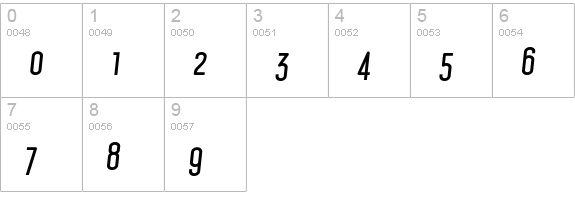
ConcursoItalian BTN BoldOblique Font Details
ConcursoItalian BTN BoldOblique font is a striking and elegant typeface that exudes sophistication and style. Its bold yet graceful curves make it perfect for adding a touch of class to any design project. Whether you're working on a branding project, a poster, or a website, this font is sure to make a statement. The italicized slant of the letters adds a dynamic flair to the overall look, making ConcursoItalian BTN BoldOblique font a versatile choice for both formal and informal designs. Its sleek and modern design will capture attention and leave a lasting impression on your audience. And the best part? ConcursoItalian BTN BoldOblique font is available for free download at FontsMarket.com. So go ahead and elevate your designs with this stunning font without breaking the bank. Download it today and let your creativity shine with ConcursoItalian BTN BoldOblique font.